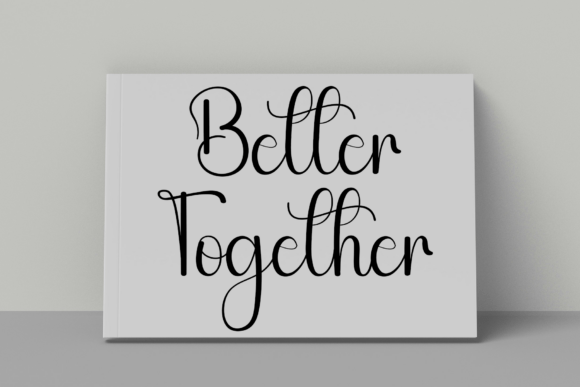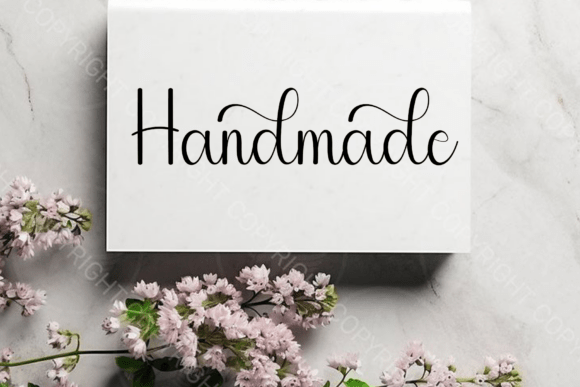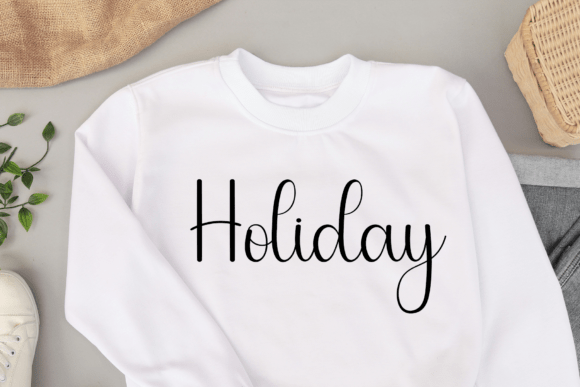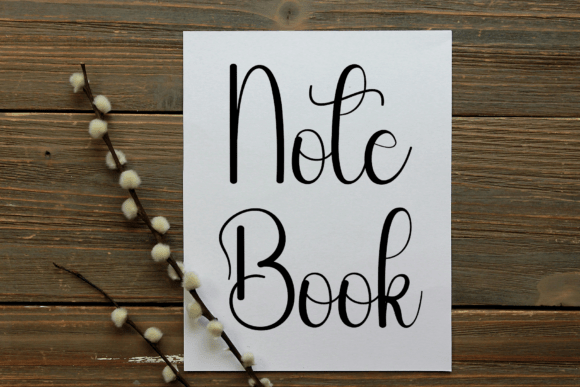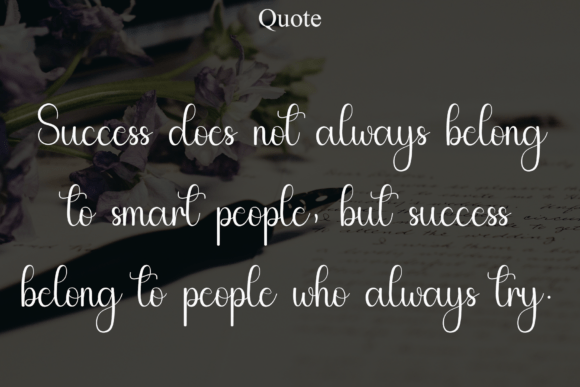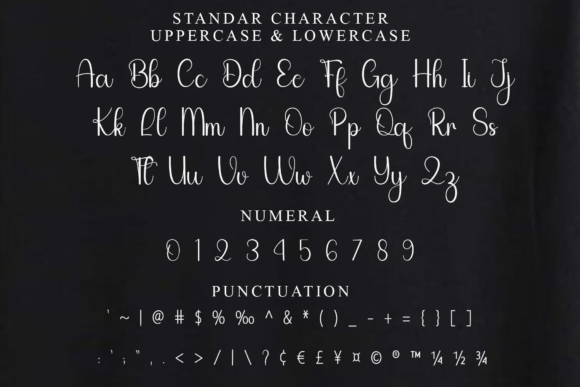
The Power of Beloved Font: Unlocking Warmth and Friendliness in Your Designs
I still remember the time I was working on a project for a client’s birthday party invitation. I had all the design elements in place, but something was missing – the perfect font. I scrolled through my font library, but nothing seemed to capture the warmth and playfulness I was looking for. That’s when I stumbled upon Beloved Font, and it instantly became the perfect fit. In this article, I’ll share my experience with Beloved Font, its features, and how to make the most of it in your designs.
A Personal Review of Beloved Font
As a designer, I’m always on the lookout for fonts that can add a personal touch to my projects. Beloved Font has become a go-to in my font library, and here’s why:
• ✨ Warm and Friendly: Beloved Font exudes a sense of warmth and friendliness, making it perfect for personal projects, invitations, and social media graphics.
• ✅ Playful Strokes: The font’s round, playful strokes create a relaxed and approachable feel that’s hard to achieve with other fonts.
• ✨ Charming Aesthetic: The hand-drawn aesthetic of Beloved Font adds a fun and unique touch to any design, making it stand out from more traditional fonts.
However, no font is perfect, and Beloved Font has a few quirks:
• ⚠️ Limited Formality: Beloved Font is a casual font, so it may not be the best choice for formal or professional projects.
• 🤔 Glyph Limitations: While Beloved Font comes with standard PUA Encoded glyphs, some users may find the selection limited compared to other fonts.
The Story Behind Beloved Font
Beloved Font was designed with the intention of creating a warm and friendly font that could add a personal touch to any design. The designer aimed to create a font that would evoke feelings of comfort and approachability, making it perfect for personal projects and creative endeavors.
What is Beloved Font? Beloved Font is a casual and creative font that exudes warmth and friendliness.
Does Beloved Font come with OpenType features? Yes, Beloved Font comes with standard PUA Encoded glyphs and OpenType features, such as stylistic alternates.